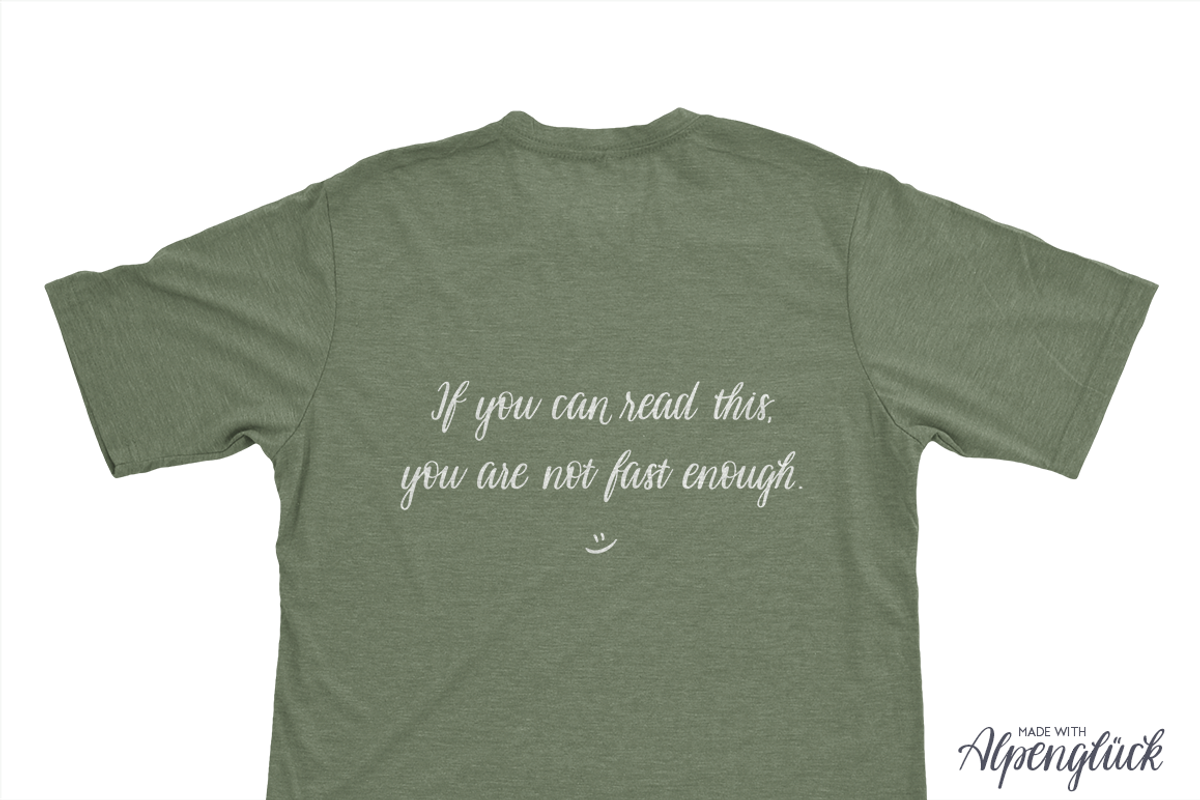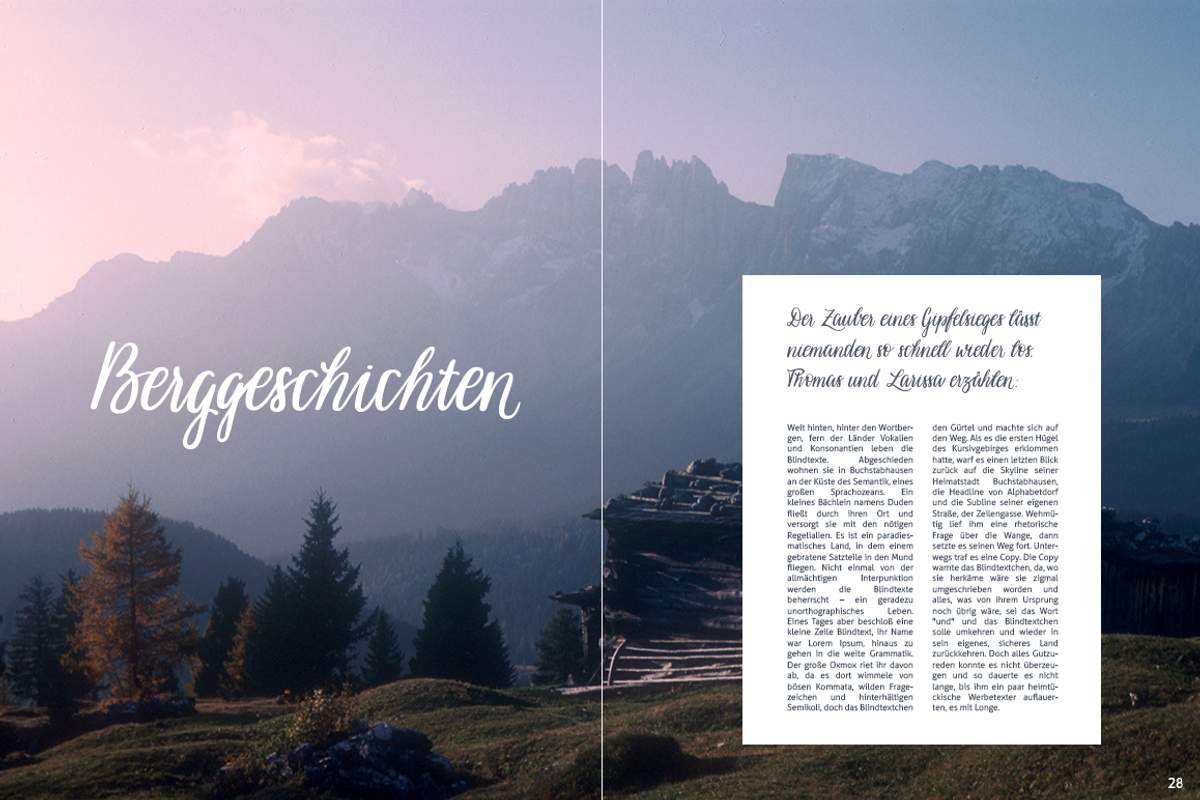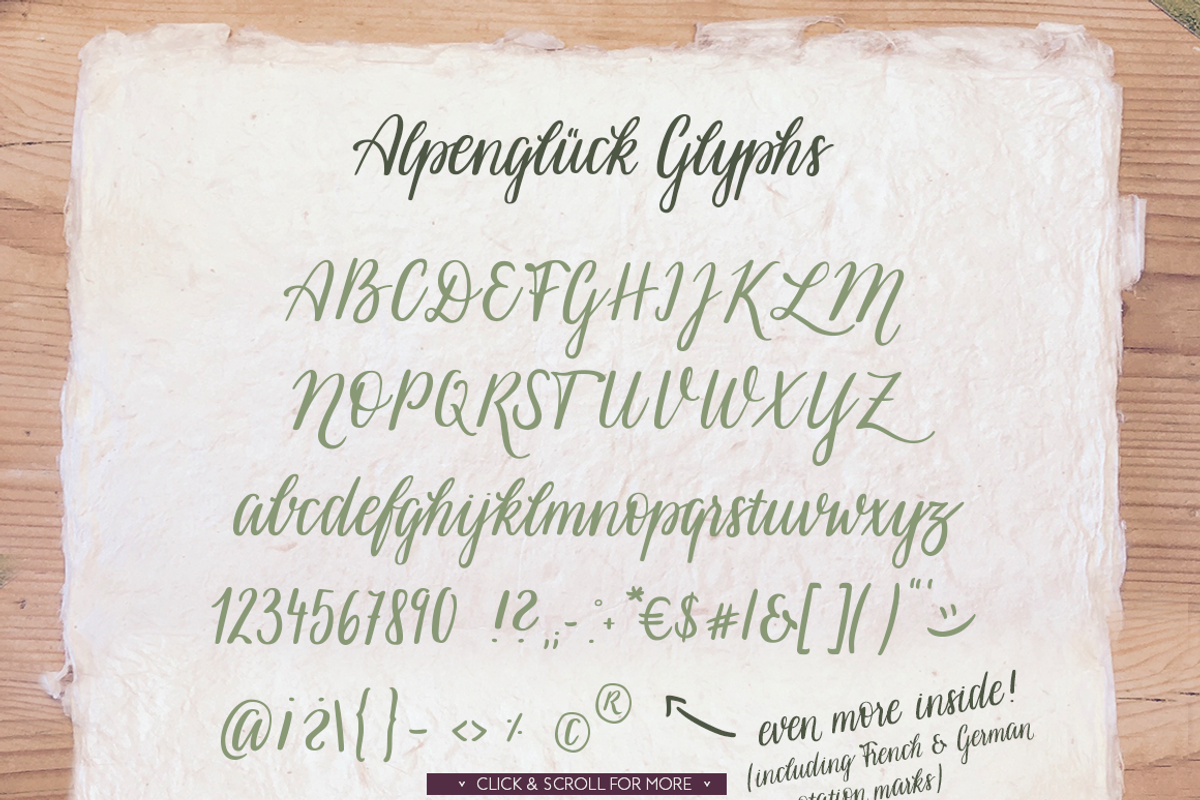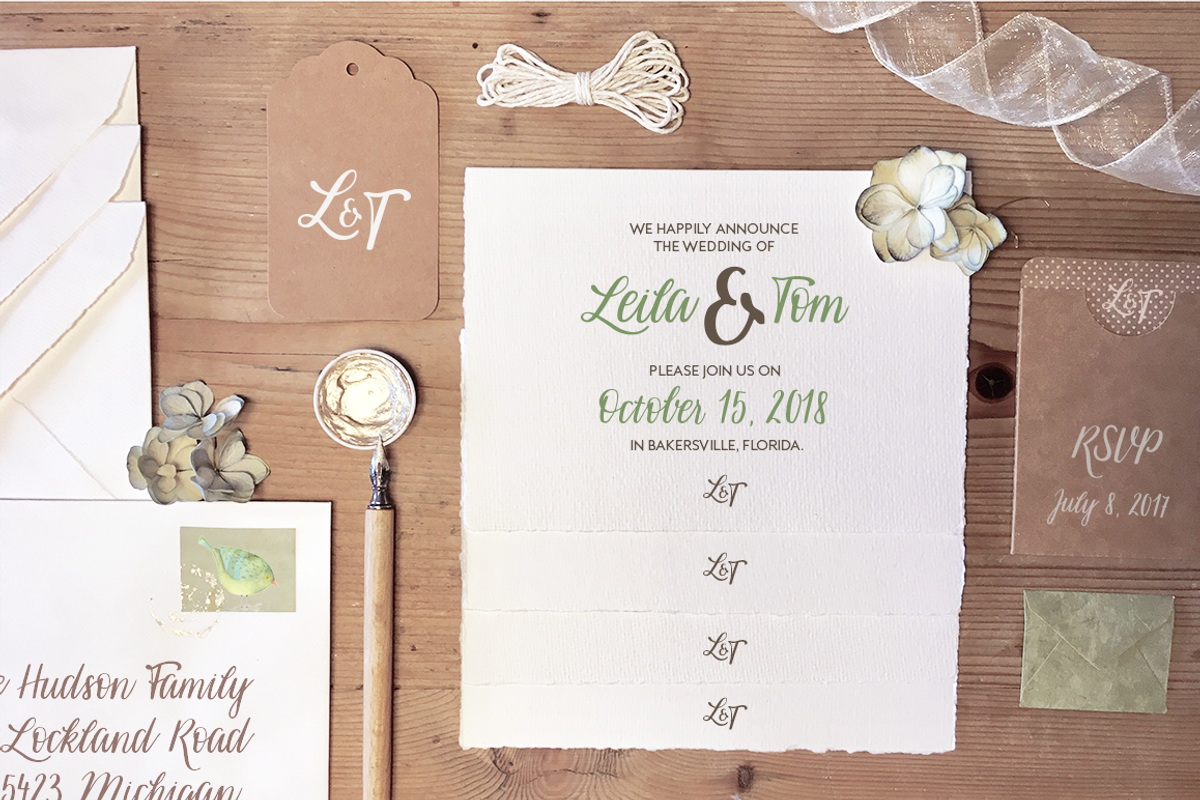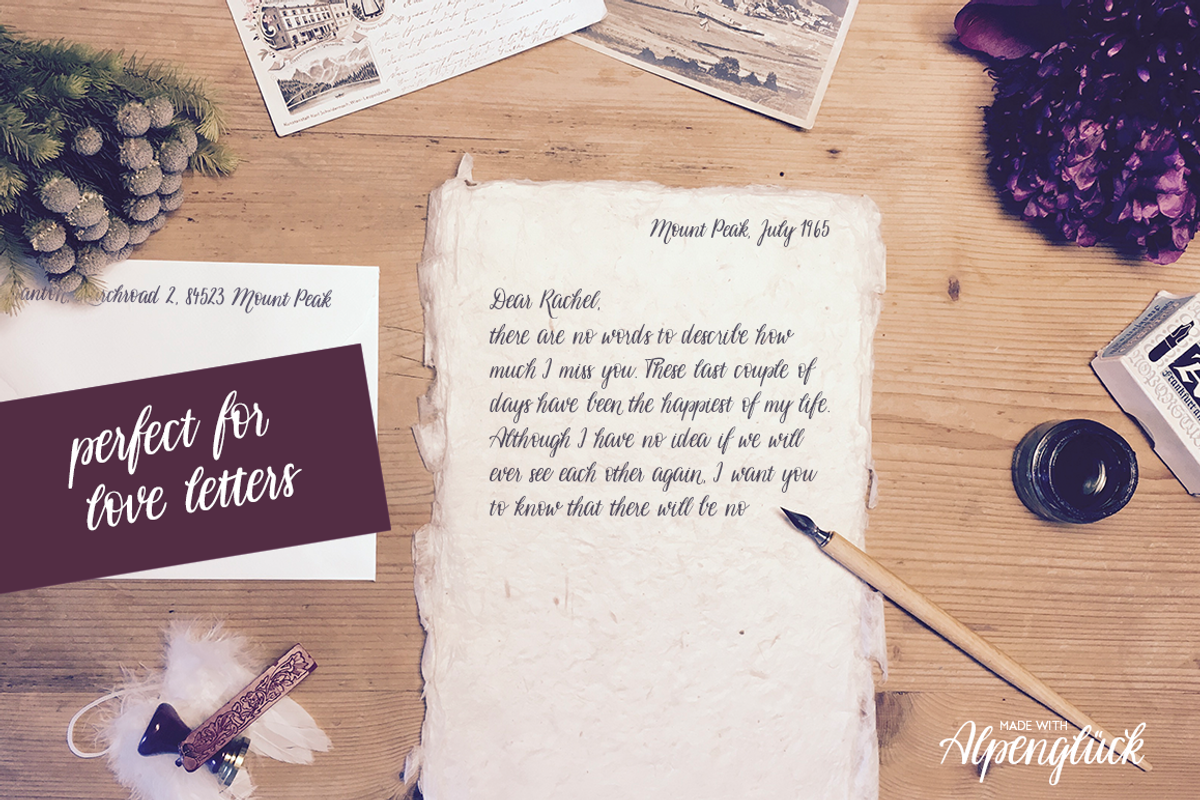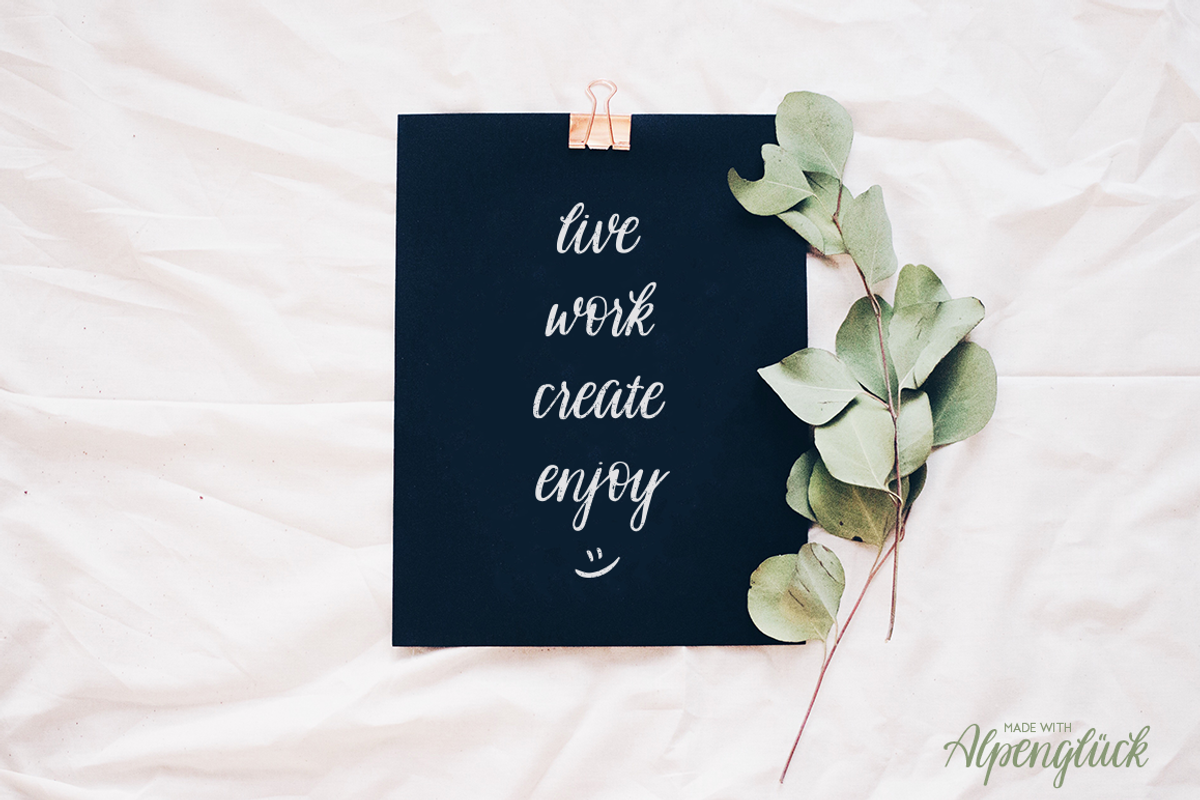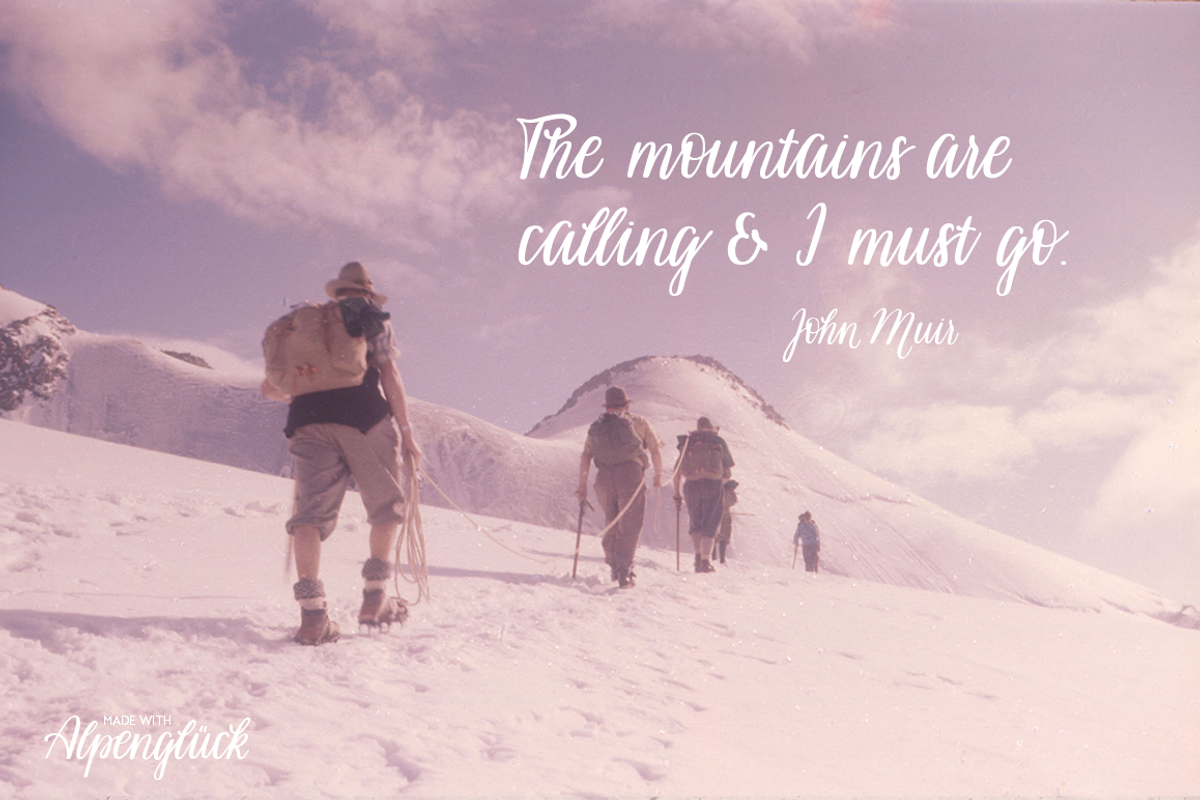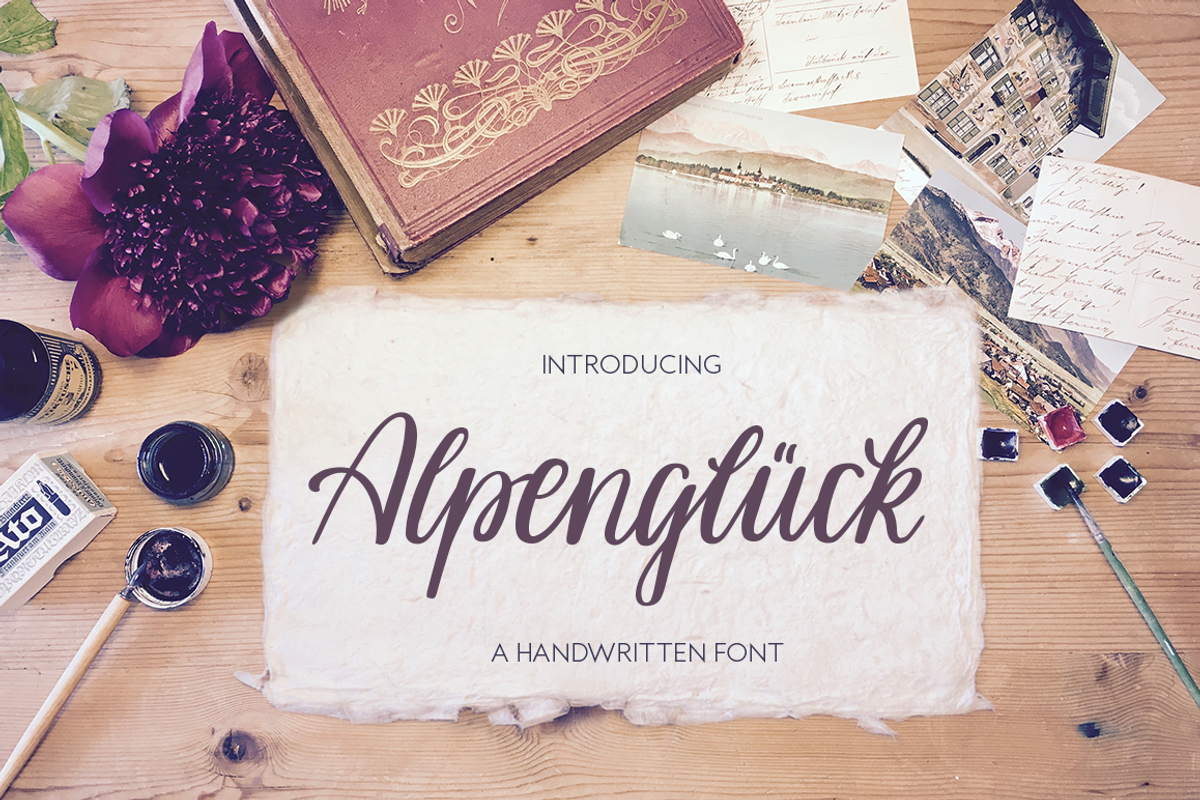
Alpenglueck - a handwritten font
Alpenglueck - a handwritten font by Laura Heidi is a font selected for branding, posters, packaging, typography.
- Please refer to the preview images to see all the glyphs included.
- I included a smiley in the font (as you might have noticed in the preview images).
- Please refer to the preview images to see all the glyphs included.
- I included a smiley in the font (as you might have noticed in the preview images).
Why Alpenglueck - a handwritten font is worth a look
Alpenglueck - a handwritten font by Laura Heidi fits naturally into Branding, posters, packaging, typography.